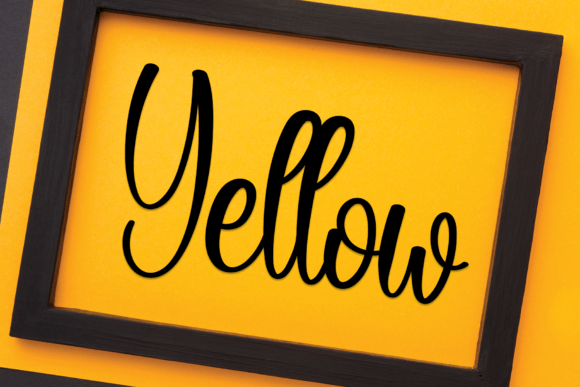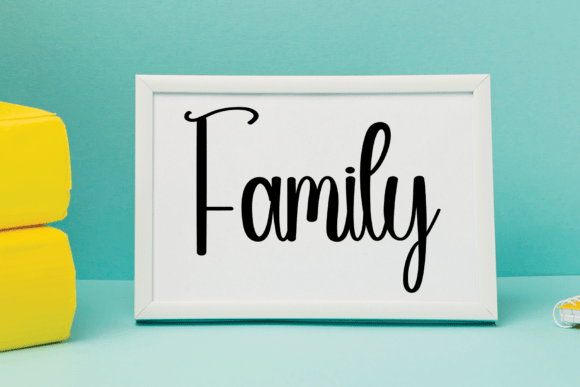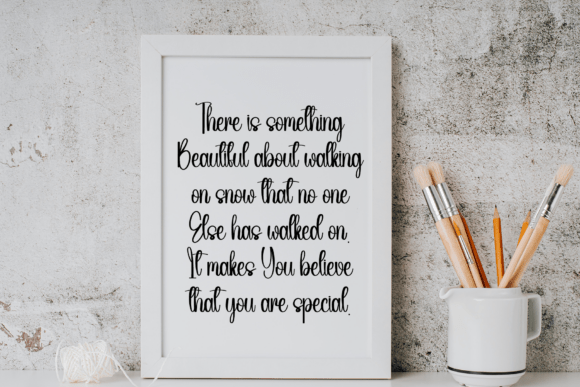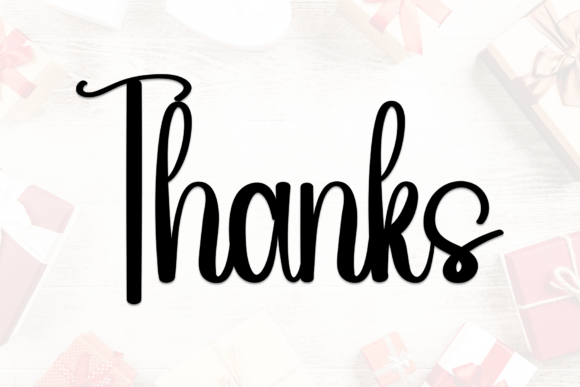
The Perfect Font for a Heartfelt Christmas
As designers, we’ve all been there – staring at a blank canvas, trying to capture the essence of a special moment. For me, it was Christmas morning as a child, waking up to find a room filled with the magic of the season. The twinkling lights, the scent of freshly baked cookies, and the sound of laughter all blended together to create an unforgettable experience. And that’s exactly what the Christmas Someday Font aims to capture – the warmth and coziness of the holiday season.
With its smooth strokes and organic lines, this charming handwritten font is the perfect addition to any design project. Whether you’re creating a festive brand identity, designing invitations, or crafting social media graphics, the Christmas Someday Font is sure to add a touch of heartfelt perfection. And for designers, its value lies in its versatility and ability to evoke a relaxed atmosphere – making it a must-have for any holiday design project.
Key Features of Christmas Someday Font
- Unique Characteristics: The font features a unique, hand-drawn style with a mix of modern and traditional elements, making it ideal for holiday-themed designs, such as Christmas and winter-related projects.
Designer Review: Christmas Someday Font
Overall, I think the Christmas Someday Font has a lot of potential, but it also comes with some limitations. Let’s dive into the details.
- The font has a unique, handwritten feel that could add a personal touch to holiday designs.
- The varying line widths and letterforms give it a sense of movement and energy.
- The font is well-suited for titles and headings, as it’s eye-catching and attention-grabbing.
- The font may be a bit too ornate for some designs, making it difficult to read at smaller sizes.
- The lack of a bold weight means that it may not be suitable for use in body text or long blocks of copy.
- The font’s irregularity may not be suitable for use in certain contexts, such as in corporate or formal designs.
While the Christmas Someday Font has some limitations, I think it’s a great choice for holiday designs that need a bit of personality and flair. Just be sure to use it judiciously and in contexts where it will shine.
Practical Application Guide for “Christmas Someday Font”
For the most effective use of the “Christmas Someday Font”, use it in conjunction with festive graphics, such as holly leaves, snowflakes, or Christmas trees.
Creating holiday greeting cards or invitations
Designing festive social media posts or graphics
Adding a touch of holiday cheer to your website or blog
Great Vibes is a beautiful, elegant script font that works well for titles, headings, and other decorative text. It’s perfect for creating a festive atmosphere without being too Christmas-specific. Use it when you want to add a touch of sophistication to your design.
Compared to Christmas Someday Font, Great Vibes is more versatile and can be used for various occasions beyond Christmas. It’s also more elegant and refined, making it suitable for high-end designs.